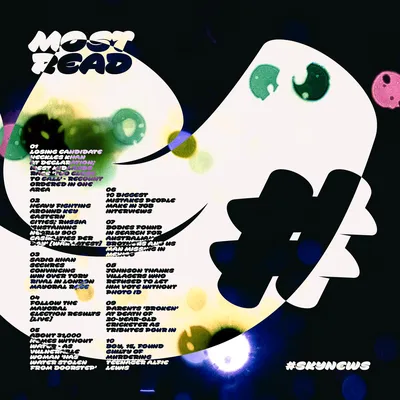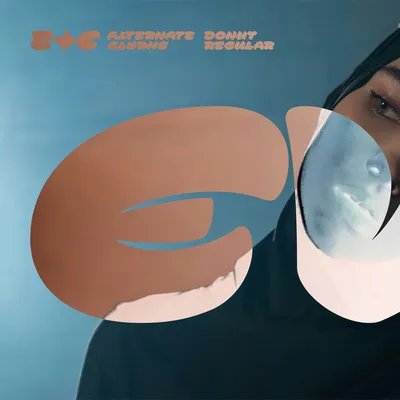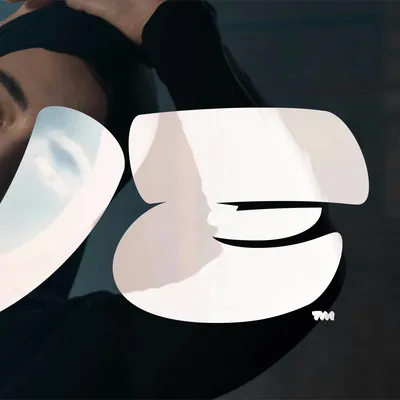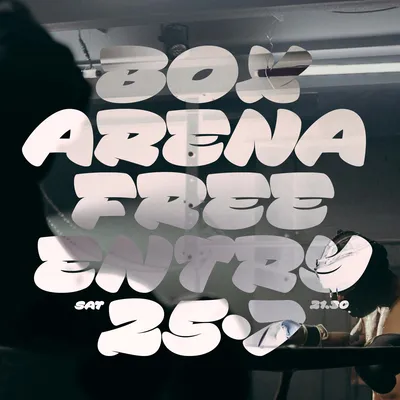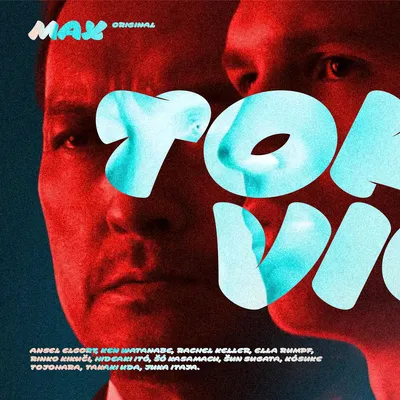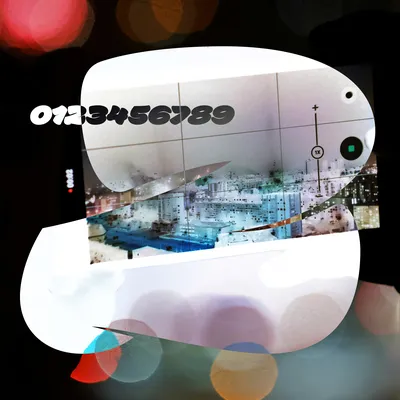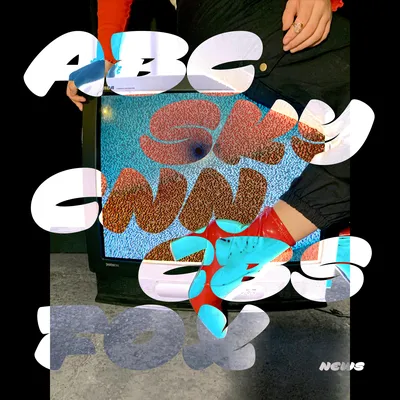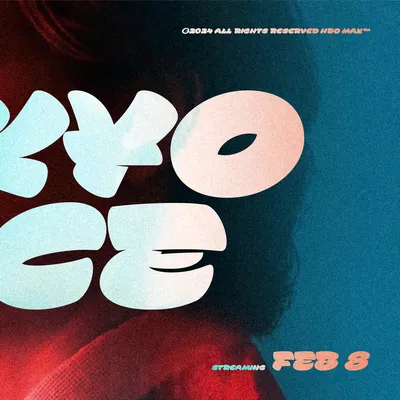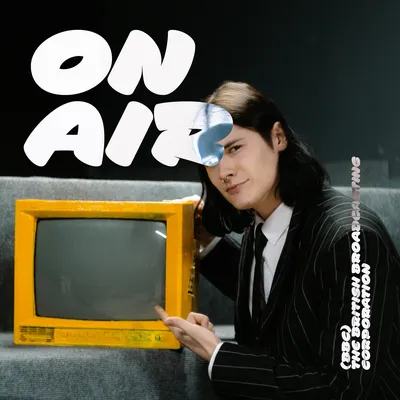
Back in 2022, I created the fat display script Donut for the mural in Warsaw, Poland. I wanted the characters to be as wide and compact as possible, and make the letters fit nicely on the relatively low but long wall. I tried to get as much mass into the individual letter's bounding box and squeeze the stems as close as possible, similar to, e.g. Klimax (Setup Type), Baseliner (Briefcase Type Foundry), or Corpulent (Suitcase Type Foundry). Donut's dark ductus is enhanced by the tight spacing, where the letters bump into each other or overlaps, leaving only tiny gaps between them. The small triangles that act as false ink traps are a striking detail to aid the complicated legibility. This detail also appears in all characters, such as #?&%, etc. The diacritics are partially recessed into individual glyphs, yet clear. Donut is a simple uppercase script typeface without unnecessary complexity supplemented with a minimum of OpenType features, although I could not miss out on the alternative E. Enjoy!
PS. Donut is a Czech name for a fried doughnut. Although Czechs do not prepare doughnuts with a hole, but are full & filled with jam and sugar, it is a traditional pastry eaten especially during Easter holidays.
PD Donut
1 – Regular
Petra Dočekalová
2022
September 2025
• Classification:
Script, Heavy, Display
This detail also appears in all characters, such as #?&%, etc. The diacritics are partially recessed into individual glyphs, yet clear. Donut is a simple uppercase script typeface without unnecessary complexity.
Donut is a Czech name for a fried doughnut.